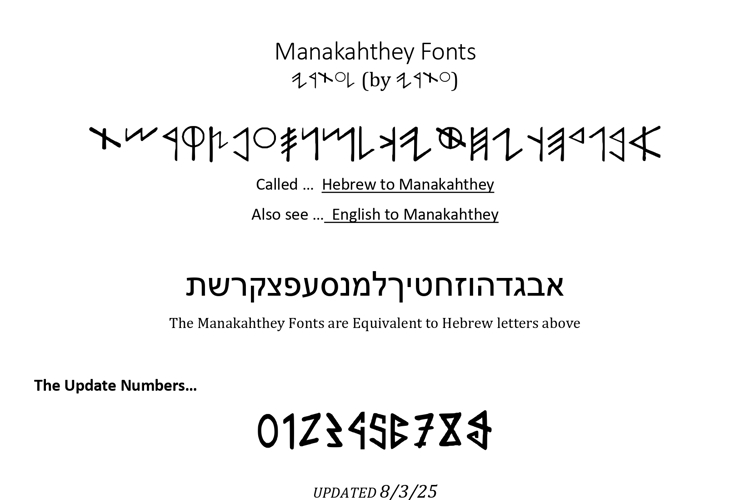
Hebrew To Manakahthey Font
this is paleo hebrew to many, I call it Manakahthey. see Manakahthey.com I designed these fonts according to my research of the ancient language.